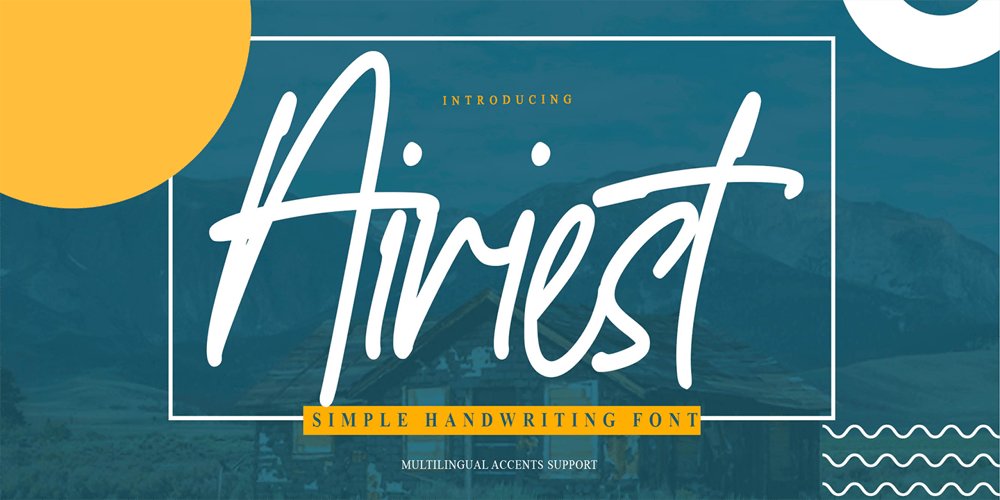
Airiest Font Family was designed by Abdul Malik Wisnu, Anang Fibriyanto and published by Gassstype. Airiest contains 1 styles and family package options. Hello Everyone, introduce our new product Airiest It Is Simple Handwriting Font with a natural feel. This handmade font will make your design has a beautiful natural touch for each details. It is perfect for any design You can activate 11 Ligature glyphs OpenType panel.